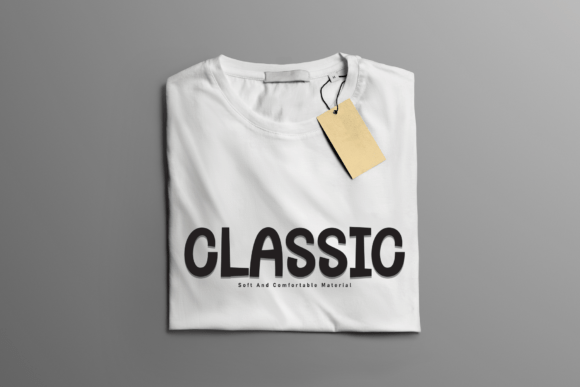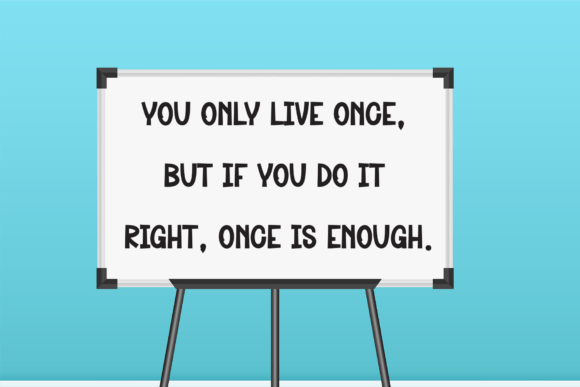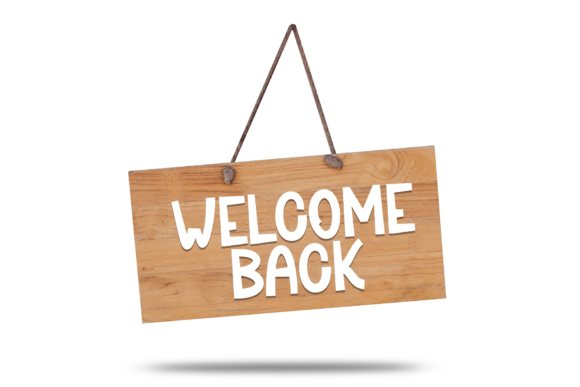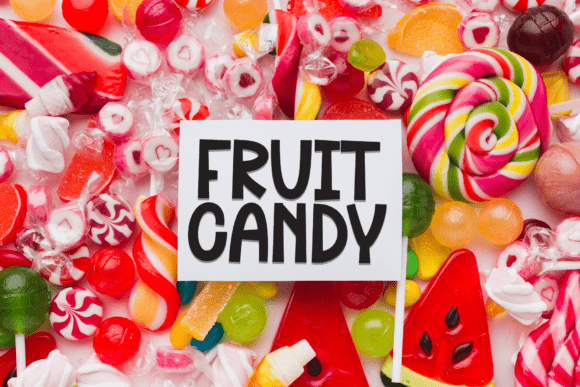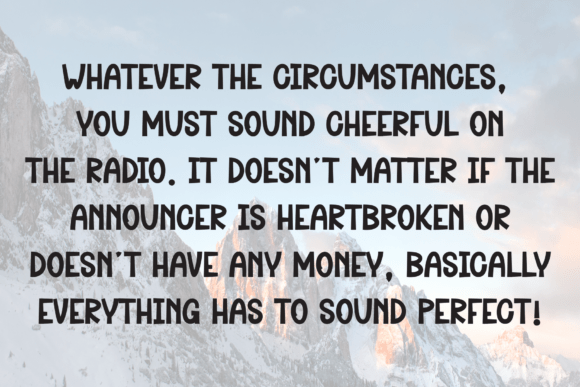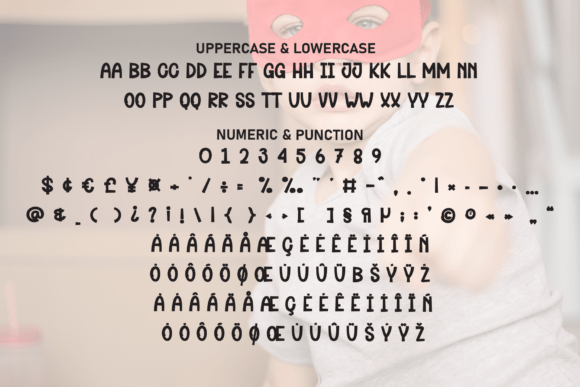
Baby Super Font: The Ultimate Choice for Elegant and Whimsical Designs
Are you a designer or crafter looking for a font that can add a touch of elegance and simplicity to your designs? Look no further than the Baby Super Font, a charmingly adorable handwritten display font that is crafted with love and an artistic eye. This delightful and whimsical font is perfect for creating wedding invitations, heartfelt cards, and other designs that require a sprinkle of buoyant charm.
The Characteristics of Baby Super Font
The Baby Super Font is a unique and endearing font that boasts a pleasing aura, casting a light on the joyous experiences life has to offer. Its delightful and whimsical nature makes it the go-to choice for lovers of elegance and simplicity. The font features:
- Handwritten display font with a charming and adorable feel
- Crafted with love and an artistic eye for attention to detail
- Delightful and whimsical nature that adds a touch of elegance and simplicity to designs
- Perfectly suited for crafting wedding invitations, heartfelt cards, and other designs
Uses of Baby Super Font
The Baby Super Font is a versatile font that can be used in a variety of design projects, including:
- Wedding invitations: Add a touch of elegance and romance to your wedding invitations with this beautiful font.
- Heartfelt cards: Create personalized and thoughtful cards for special occasions with this charming font.
- Designs: Add a sprinkle of buoyant charm to your designs, whether it’s a logo, brochure, or website.
Why Choose Baby Super Font?
There are many reasons why designers and crafters choose the Baby Super Font for their projects. Here are a few:
- Unique and eye-catching: The Baby Super Font is a one-of-a-kind font that is sure to grab attention and leave a lasting impression.
- Elegant and simple: The font’s elegant and simple design makes it perfect for designs that require a touch of sophistication.
- Easy to read: The font is clear and easy to read, making it perfect for body text and headings.
In conclusion, the Baby Super Font is a charmingly adorable handwritten display font that is perfect for designers and crafters looking to add a touch of elegance and simplicity to their designs. Its delightful and whimsical nature makes it the go-to choice for lovers of elegance and simplicity. With its unique characteristics, versatility, and ease of use, the Baby Super Font is sure to become a favorite in your design arsenal.